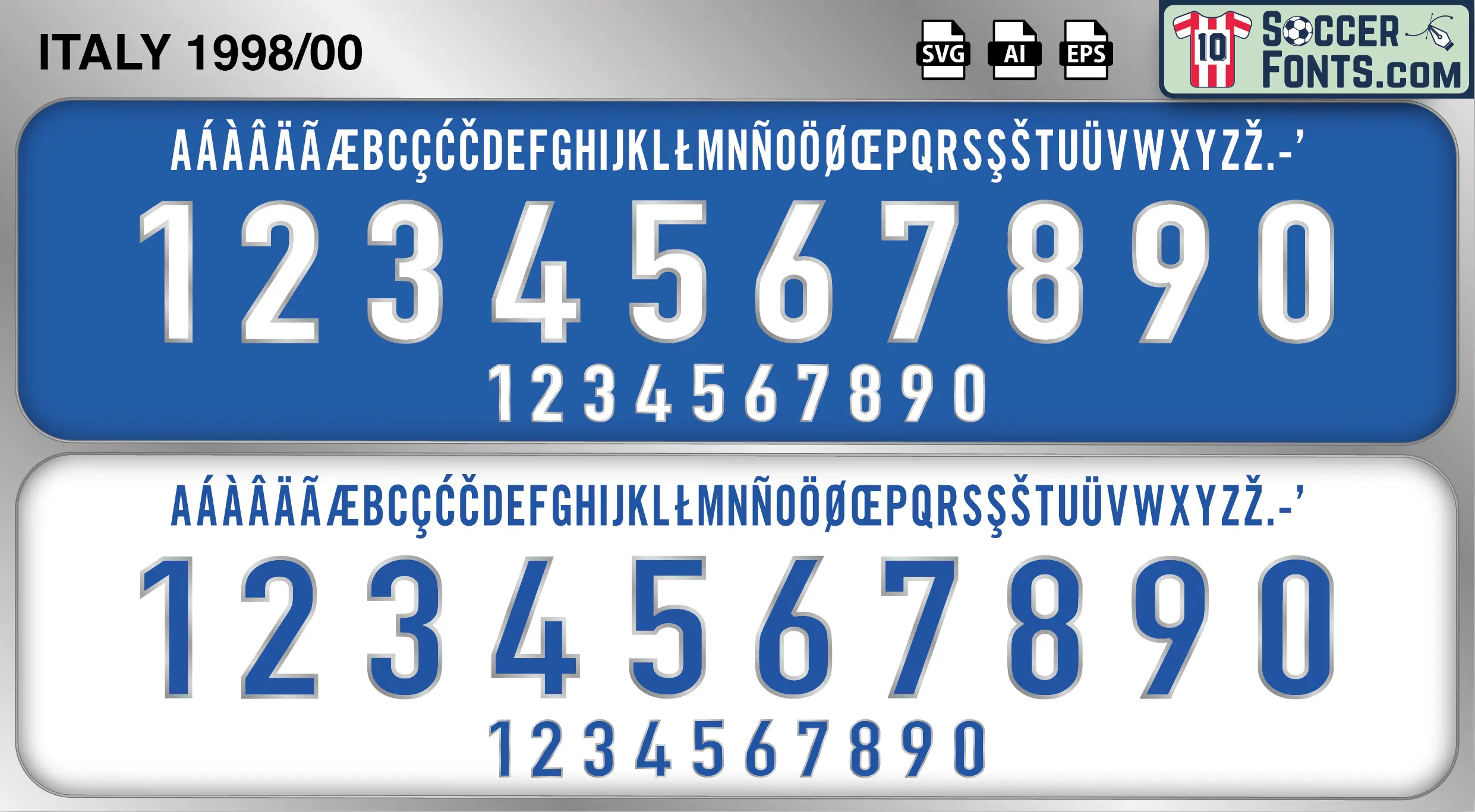
Italy 1998-00 Font
The Italy 1998-00 font is an editable soccer jersey lettering design in vector format inspired by the Italy kit style used during the 1998-00 football seasons. This football font artwork is prepared for football shirt recreations, custom jersey projects, football kit mockups and sports graphic design workflows.
The 1998-00 period featured one of the most talented generations in the history of the Italian national team. Following the 1998 FIFA World Cup in France, Italy remained a major force in international football with a squad featuring Paolo Maldini, Alessandro Del Piero, Christian Vieri, Dino Baggio, Fabio Cannavaro, Demetrio Albertini and Gianluigi Buffon. Italian football during this era was widely regarded as one of the strongest in the world, with Serie A attracting many of the game’s biggest stars. The national team carried high expectations into UEFA EURO 2000 and combined tactical discipline with individual quality throughout the tournament.
The Italy 1998-00 font became associated with one of the most iconic periods of late-1990s football culture. Italy shirts from this era remain highly collectible because of their connection with legendary players, memorable World Cup moments and the dramatic run to the UEFA EURO 2000 Final. The Italy 1998-00 font reflects a period when Italian football stood at the center of the global game, representing a generation remembered for its technical quality, defensive excellence and enduring influence on football history.